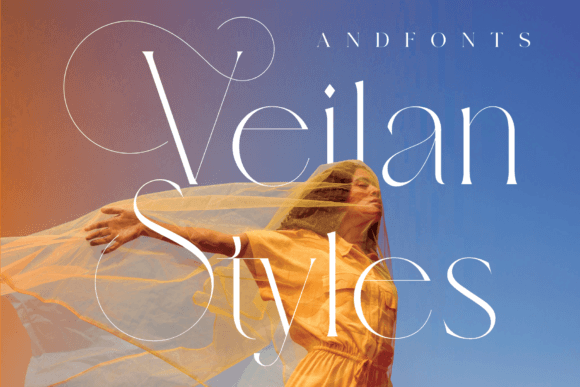
Veilan Font
Behold Veilan, the masterful and uniquely crafted serif font that redefines typographic elegance. Its thin, delicately weighted strokes evoke a sense of refinement, making this font a luxurious choice for those seeking to create sophisticated and alluring designs.
Experience the beauty of Veilan's intricate alternates, meticulously designed to add subtle variations and depth to your creations. Each letterform is a testament to the font's dedication to sophistication and flair.
With Veilan, you possess the artistry to transform your designs into timeless masterpieces. Its sophisticated curves and precise serifs exude a timeless quality that will captivate your audience and leave them in awe.
This font isn't just a digital tool; it's a gateway to a world of luxury and grandeur. Embark on a typographic journey where every word becomes a visual masterpiece, where each design narrates a captivating story of elegance and poise.
Furthermore, Veilan's PUA encoding opens the door to a treasure trove of additional characters, glyphs, and swashes. These hidden gems await your creative touch, inviting you to unlock the full potential of this versatile font and craft designs that transcend the ordinary.
Don't settle for ordinary fonts. Choose Veilan, the font that captures the essence of sophistication and luxury, elevating your designs to new heights of brilliance. Embrace the allure of Veilan and elevate your creations to new echelons of excellence.